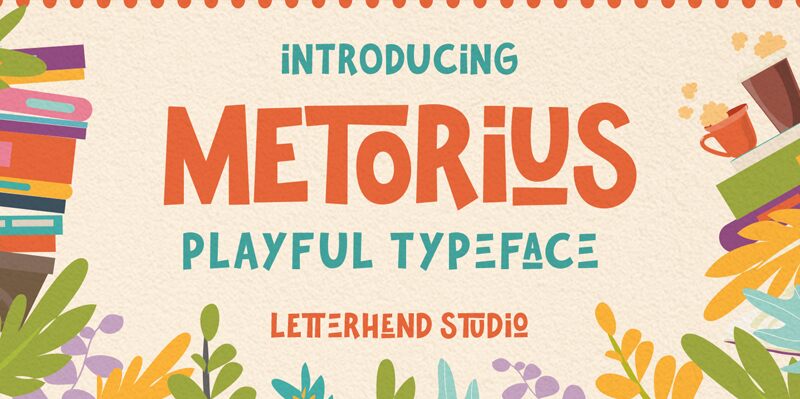
Metorius Sans, designed by Letterhend Studio, is a bold and playful display font that's perfect for projects that require a touch of whimsy. Its semi-condensed width makes it ideal for headlines, logos, and branding materials that need to make an impact. The cartoon-style letters are fun and friendly, making it suitable for children's books or toy packaging. But don't let the playful appearance fool you – this typeface is also suitable for serious projects like business presentations or advertisements that need to stand out from the crowd. With Metorius Sans, your message will be conveyed in a unique and memorable way.